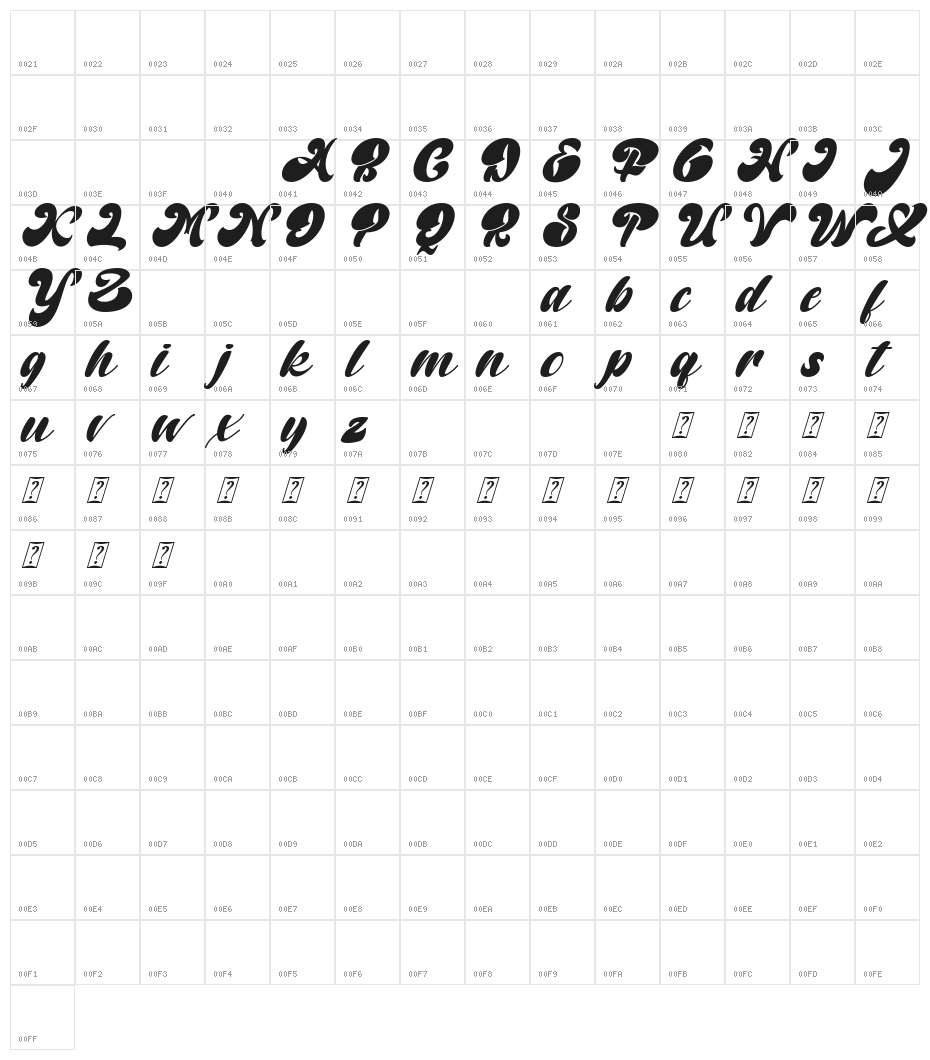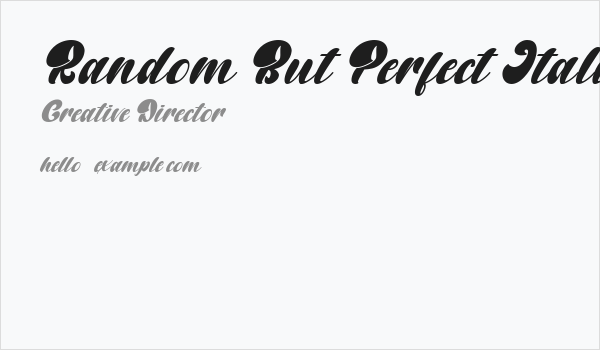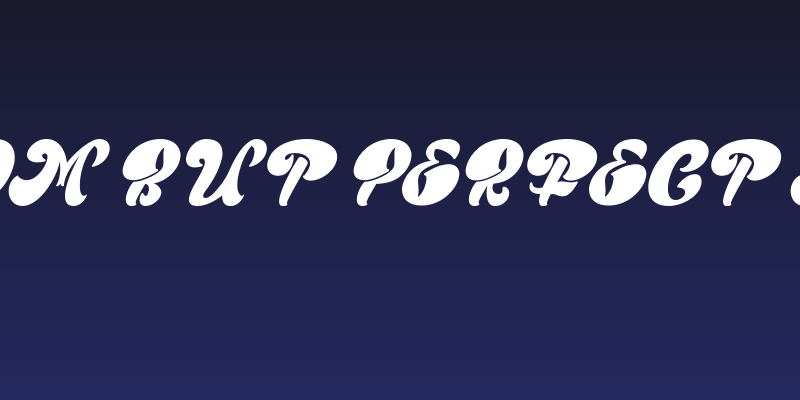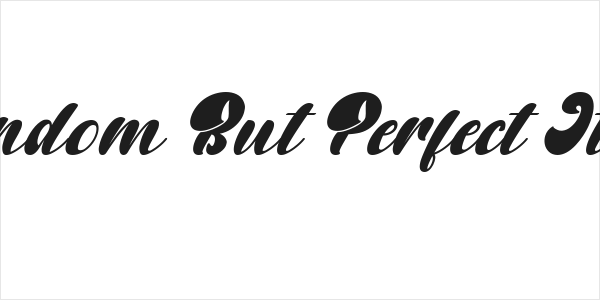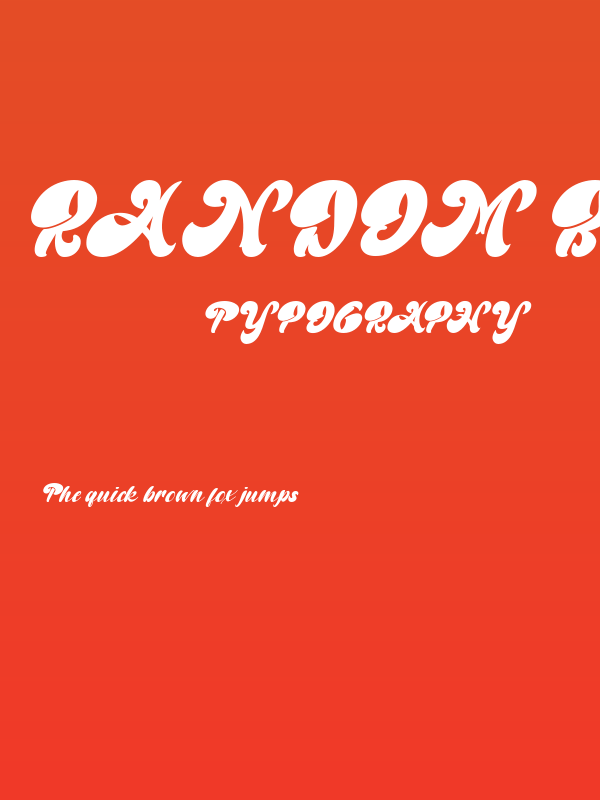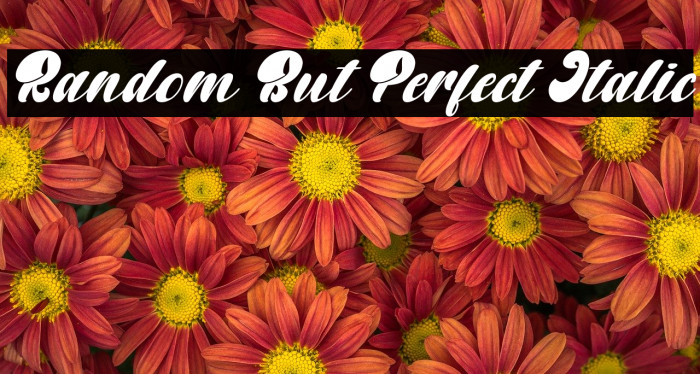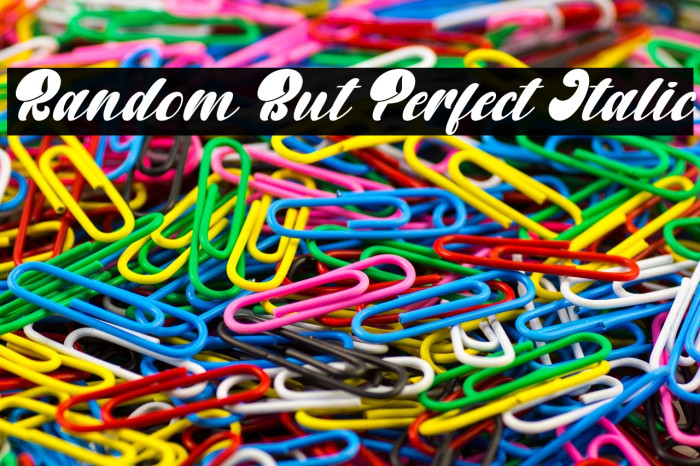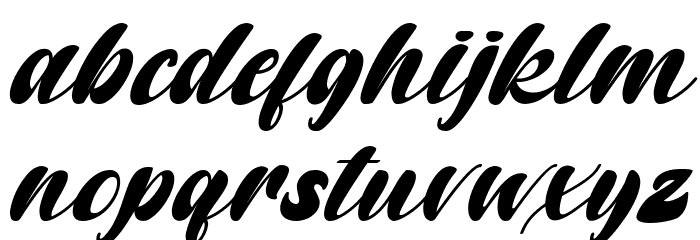
Random But Perfect Italic Font
Random But Perfect Italic Description
This font features a bold and expressive script style with a strong italic slant, creating a dynamic and fluid appearance. The characters are interconnected with sweeping curves and flourishes, giving it a sense of movement and elegance. The bold weight of the strokes enhances its visibility and impact, making it suitable for attention-grabbing designs. The uppercase letters are particularly ornate, with distinctive loops and swirls, while the lowercase letters maintain a consistent flow. The font's high contrast between thick and thin strokes adds to its dramatic and stylish look.
| Proposed Projects | Ideal for branding, invitations, posters, and any design requiring a touch of elegance and flair. |